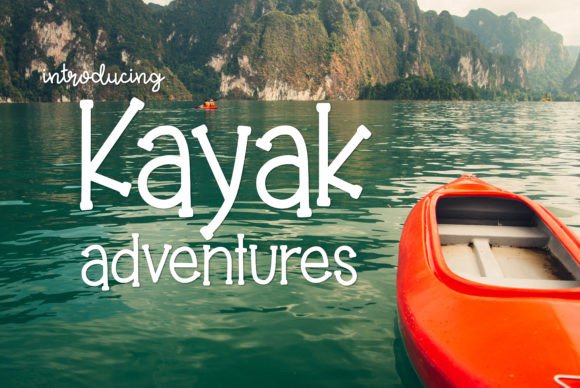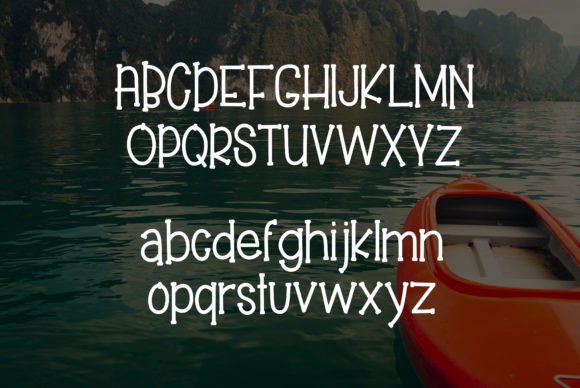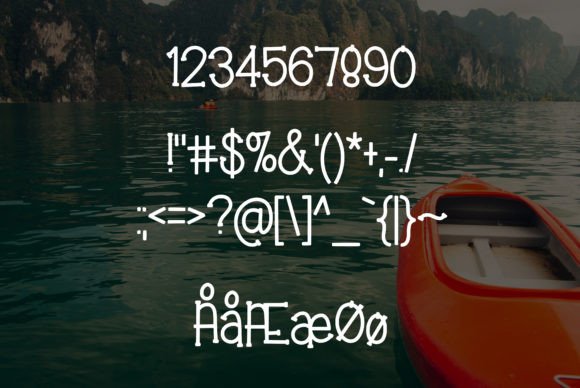
Kayak Adventure Font
About the Kayak Adventure Font
Introducing the Kayak Adventure Font, a beautifully crafted typeface designed to elevate your creative projects. “Kayak Adventures” is a fun and playful font with a relaxed, hand-drawn style, perfect for outdoor-themed projects. Its bold yet whimsical characters convey an adventurous spirit, ideal for water sports, nature exploration, and travel designs. This font includes both uppercase and lowercase letters, numbers, and a variety of punctuation marks, adding versatility to its design.
This font shines in headlines, logos, and short-form text for projects emphasizing adventure, nature, or a playful brand identity. It works exceptionally well on posters, brochures, and packaging for outdoor gear or tourism-related businesses. Avoid using it for large blocks of body text or UI elements where readability is paramount; its informal style may hinder legibility.
Kayak Adventure pairs well with clean sans-serif fonts like Open Sans for a balanced contrast, or a more geometric sans-serif such as Futura for a modern feel. For a touch of elegance, consider pairing it with a subtle serif like Garamond. These pairings provide a strong visual anchor against the font’s playful hand-drawn quality.
The overall personality is bold, friendly, and approachable, conveying a sense of carefree adventure. Its hand-drawn quality suggests authenticity and approachability, making it ideal for brands wishing to project a fun and trustworthy image.
Kayak Adventure Font Usage Examples
Kayak Adventure Font Example